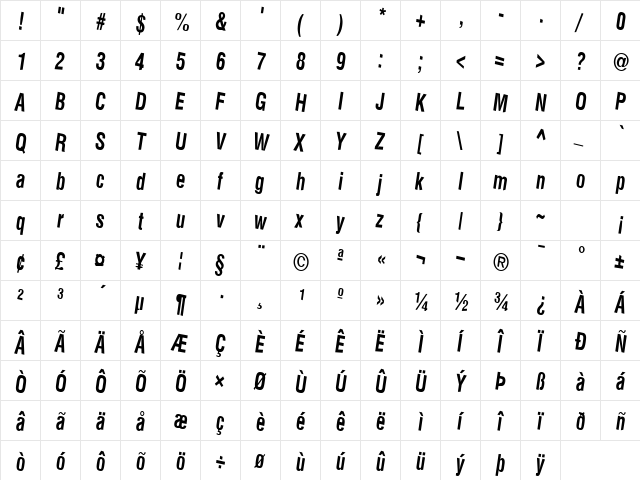
CarParkText33 Regular
Design Context for CarParkText33 Typeface
CarParkText33 is a composed and adaptable typeface that performs quietly and consistently across a wide range of design contexts.